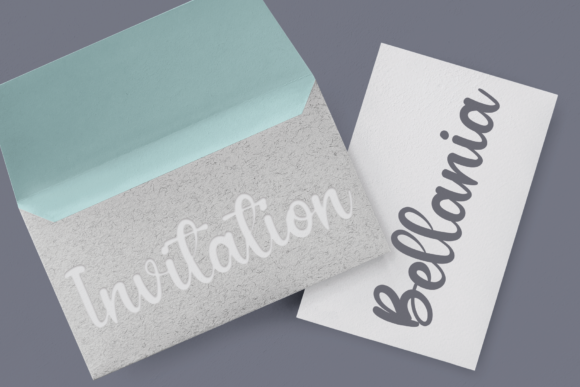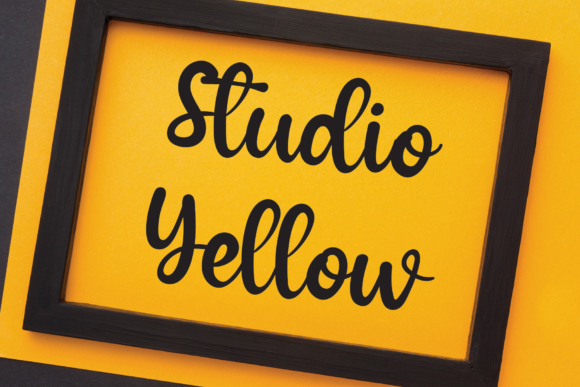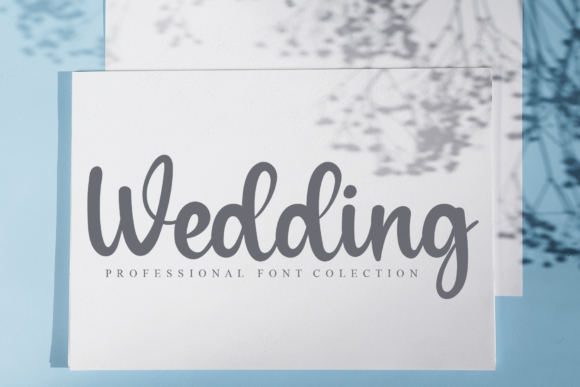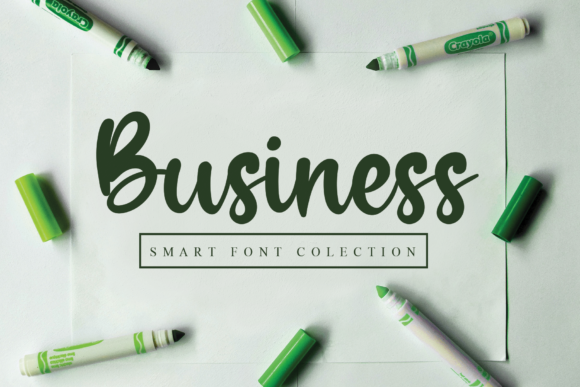
Introducing Amellinda Weddings Font: Elevate Your Designs with Elegance
Are you a designer or crafter looking for the perfect font to add a touch of sophistication and romance to your wedding-related designs? Look no further than Amellinda Weddings Font, a stunning script font that is sure to impress. In this article, we’ll dive into the features and benefits of Amellinda Weddings Font, and explore how it can elevate your designs to the next level.
What is Amellinda Weddings Font?
Amellinda Weddings Font is a stylish and incredibly elegant script font that is perfect for adding a handwritten touch to your designs. With its flowing curves and delicate lines, this font exudes romance and sophistication, making it ideal for wedding-related designs. Whether you’re creating wedding invitations, thank you cards, quotes, greeting cards, logos, or business cards, Amellinda Weddings Font is the perfect choice.
Key Features of Amellinda Weddings Font
- Elegant Script Style: Amellinda Weddings Font features a beautiful script style that is perfect for adding a touch of elegance to your designs.
- Handwritten Touch: This font has a handwritten feel that makes it perfect for designs that require a personal touch.
- Versatile: Amellinda Weddings Font can be used for a wide range of designs, including wedding invitations, thank you cards, quotes, greeting cards, logos, and business cards.
- Easy to Read: Despite its elegant and cursive style, Amellinda Weddings Font is easy to read, making it perfect for designs that require a clear and legible font.
Benefits of Using Amellinda Weddings Font
So, why should you choose Amellinda Weddings Font for your designs? Here are just a few benefits of using this stunning font:
- Adds a Touch of Elegance: Amellinda Weddings Font adds a touch of elegance and sophistication to your designs, making them perfect for wedding-related projects.
- Sets You Apart: With its unique and stylish script style, Amellinda Weddings Font can help set your designs apart from the competition.
- Perfect for Branding: This font is perfect for creating branded designs, such as logos and business cards, that require a elegant and professional look.
Inspiration and Ideas for Using Amellinda Weddings Font
Need some inspiration for using Amellinda Weddings Font? Here are a few ideas to get you started:
- Wedding Invitations: Use Amellinda Weddings Font to create stunning wedding invitations that set the tone for the big day.
- Thank You Cards: Add a personal touch to your thank you cards with this elegant font.
- Wedding Quotes: Use Amellinda Weddings Font to create beautiful wedding quotes that can be used on social media or in wedding decor.
- Logos and Branding: Create a professional and elegant logo or brand identity with Amellinda Weddings Font.
In conclusion, Amellinda Weddings Font is a stunning script font that is perfect for adding a touch of elegance and sophistication to your wedding-related designs. With its flowing curves and delicate lines, this font is sure to impress. Whether you’re a designer or crafter, Amellinda Weddings Font is a great choice for anyone looking to create beautiful and professional designs.